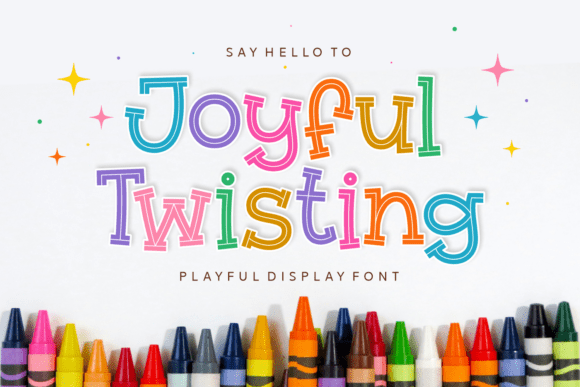
Joyful Twisting: A Designer’s Real-World Review
First Glance: Playful, Precise, and Unmistakably Human
Opening Joyful Twisting feels like unboxing a well-crafted sketchbook — not flashy, but full of quiet intention. It’s a display font that leans into motion without sacrificing structure. The terminals twist gently, letters tilt with subtle asymmetry, and the rhythm between thick and thin strokes carries warmth, not whimsy. This isn’t cartoonish or overly cutesy; it’s confident in its lightness. It reads as joyful *because* it breathes — not because it shouts. You’ll sense its personality before you even set a word: friendly but focused, expressive but never chaotic.
Where It Earns Its Place in Real Projects
As a display font, Joyful Twisting thrives where attention is earned through character — not volume. I’ve used it in logo design for small-batch bakeries, boutique studios, and indie publishers — always as the primary mark or headline anchor. It works especially well when paired with a restrained sans serif (think Inter or Poppins) for body copy: the contrast grounds the energy without dulling it.
In packaging design, Joyful Twisting shines on front-of-pack labels for artisanal goods — herbal teas, handmade soaps, small-run stationery. Its organic flow complements natural materials and tactile finishes. On product tags and hangtags, it adds distinction without competing with photography or illustration.
For social media graphics and digital ads, it performs best at medium to large sizes: Instagram story headers, Pinterest pins, and email banner text all benefit from its visual lift. It’s also become my go-to for invitation suites and wedding branding — not for formal elegance, but for couples who want warmth, authenticity, and a touch of unexpected charm.
I’ve embedded it in Canva templates for digital sellers and used it in Cricut projects for printable wall art and greeting cards. Its OpenType features (like alternate glyphs and ligatures) add nuance when manually adjusted — though most users won’t need them to get strong results.
Where to Lean In — and Where to Pause
Use Joyful Twisting for short phrases: brand names, taglines, quotes, section headers, poster titles. It excels in contexts where legibility is supported by size, spacing, and surrounding whitespace. Avoid long paragraphs, captions under 16px, or dense editorial layouts — it’s not built for extended reading.
It’s strongest in uppercase settings for logos and marks, where its twisting terminals create memorable silhouettes. Lowercase works beautifully in invitations or blog graphics — but test line height carefully. Tight tracking can blur its charm; generous letter-spacing (especially at larger sizes) lets each glyph sing.
Don’t reach for Joyful Twisting when your brand voice demands authority, tradition, or austerity. It won’t carry corporate annual reports or legal disclaimers with credibility. Likewise, skip it for high-contrast accessibility use cases unless paired thoughtfully with robust fallbacks and tested rigorously.
How It Shapes Perception — Beyond Aesthetics
Readability here isn’t about speed — it’s about invitation. Joyful Twisting doesn’t scan quickly, but it *holds*. That changes engagement: people pause, smile, remember. In brand identity work, that pause builds recognition faster than neutral fonts in crowded spaces — think farmers’ market signage or Etsy shop banners.
Hierarchy becomes intuitive: Joyful Twisting naturally commands top billing. When used beside a clean sans serif or grounded serif font, it elevates the entire composition without shouting. That balance supports professionalism — yes, even in playful contexts — because intentionality reads as care.
Audience trust grows when typography feels human-scaled. Joyful Twisting avoids the sterility of over-optimized modern typography while sidestepping the unpredictability of raw handwritten font. It lands in that rare middle ground: crafted, consistent, and kind.
Practical Notes Every Designer Should Run Before Committing
- Test in black and white first. Its charm holds without color — if it falters there, it’ll struggle anywhere.
- Check small-size readability. At 14px or below, details collapse. Reserve it for display use only — no fine print.
- Mock it up — not just on screen, but in context. Print a label, paste it on a mockup bag, drop it into a real website header. Does it still feel right?
- Compare case treatments. Uppercase delivers bold presence; lowercase offers approachability. Don’t assume one fits all uses.
- Review spacing critically. Default kerning is thoughtful, but headlines over five words often need manual tweaks — especially around “W”, “V”, and “A”.
- Pair intentionally. Try it beside a sturdy serif (e.g., Merriweather), a neutral sans (e.g., Montserrat), a delicate script (e.g., Bickham Script), and another display font (e.g., Cinzel Decorative). Notice where contrast deepens meaning — and where it creates friction.
If you’re weighing Joyful Twisting for your next project, ask: does this need to be seen, felt, and remembered — not just read? If yes, it’s worth the time to test, refine, and trust.